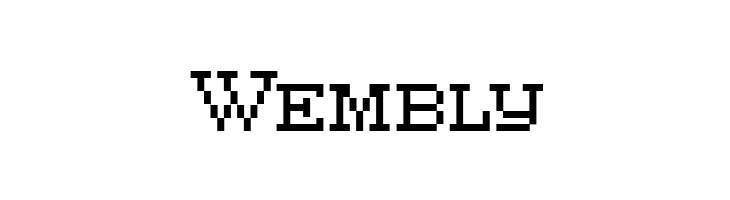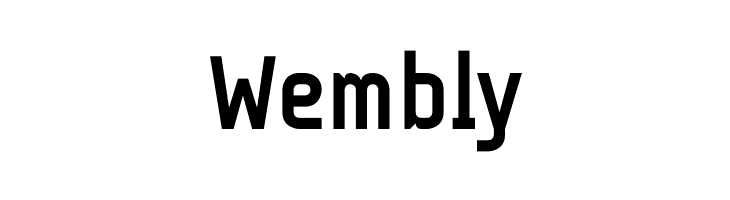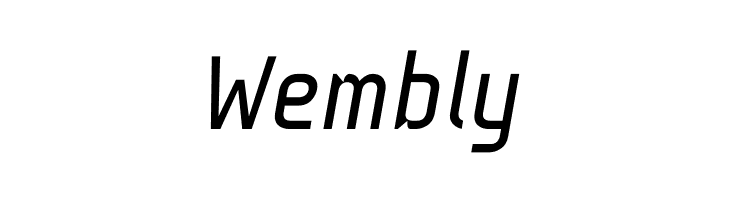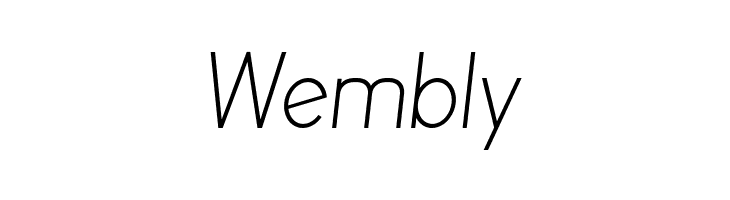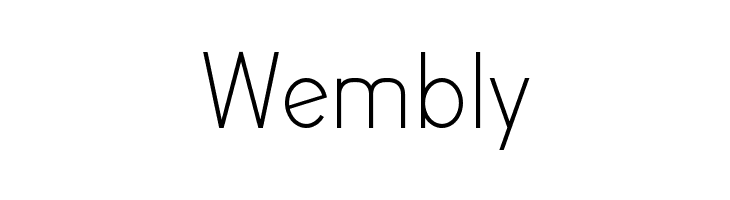
A modern, artistic font with tall, slender letterforms and subtle curves.
A bold, decorative Art Nouveau font with intricate line work and geometric patterns.
A pictogram dingbat font with hand-drawn illustrations and landmarks.
A pixelated, retro font inspired by early digital displays.
A bold, dynamic font with sharp, angular edges and a tribal or futuristic flair.
A bold, framed font inspired by traditional Asian calligraphy with a modern twist.
A bold, geometric font inspired by traditional Asian calligraphy, enclosed in rectangular frames.
A bold, fluid script font with dramatic, calligraphic strokes.
A dynamic, handwritten-style font with expressive, uneven strokes.
A playful, elegant script font with a handwritten style.
A bold, modern collection of abstract and geometric symbols with high contrast.
A decorative symbol font blending Celtic, astrological, and mythological imagery.
Decorative symbol font with zodiac and astrology-themed icons.
A playful, sketch-like handwritten font with dynamic strokes and a casual feel.
A dynamic, cursive script font with an italicized, handwritten style.
A playful, hand-drawn font with a sketch-like, artistic style.
A dynamic, italicized handwritten font with a sketch-like appearance.
A bold, slab serif font with strong, block-like serifs and even spacing.
A pixelated, retro-style font with a blocky, digital appearance.
A pixelated, retro digital font with a blocky, grid-like design.
A bold, illustrative display font with skull and t-shirt themed icons.
A decorative and whimsical font with bold strokes and intricate details.
A graceful script font with flowing, cursive strokes and elegant design.
A bold, modern script font with interconnected characters and a fluid, elegant style.
A bold, modern sans-serif font with clean lines and geometric structure.
A modern, italic sans-serif font with a sleek and dynamic style.